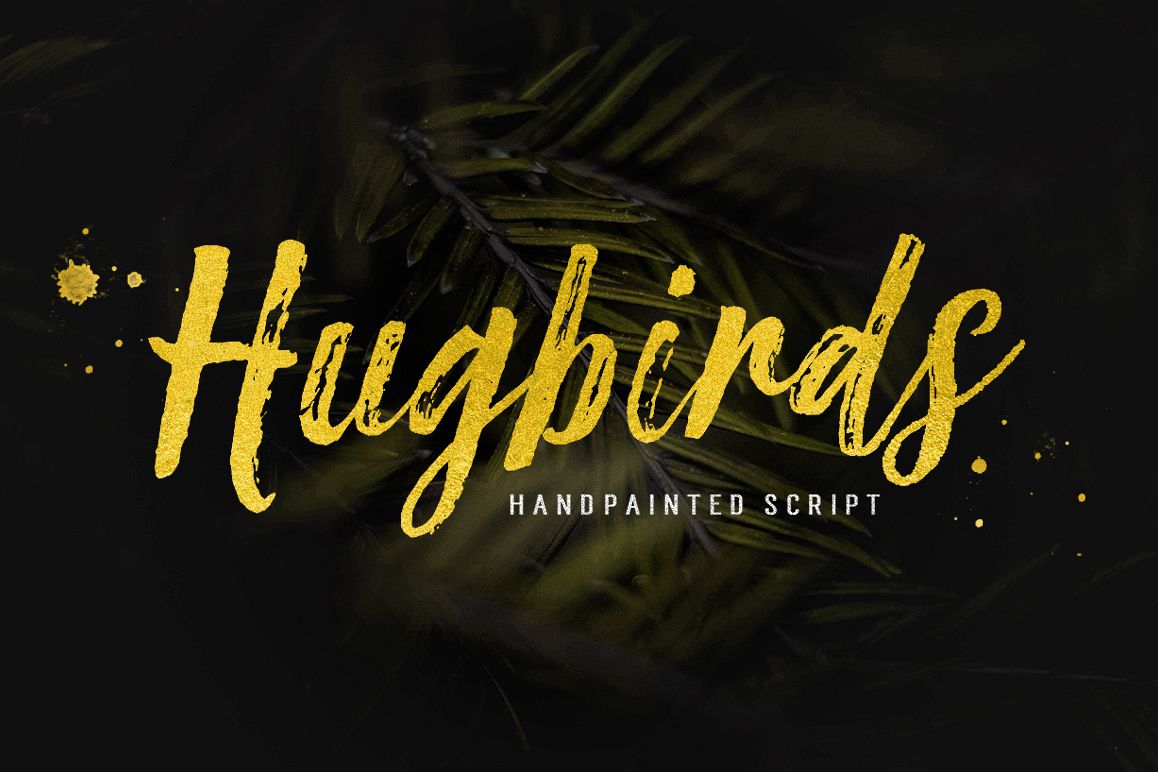
Hugbirds is a super casual hand brushed script with detailed brush stroke texture,
and a quirky, Can be used for various purposes. such as the title, signature, letterhead,
signage, labels, newsletters, posters, logos, correspondence, wedding invitations, badges, etc.